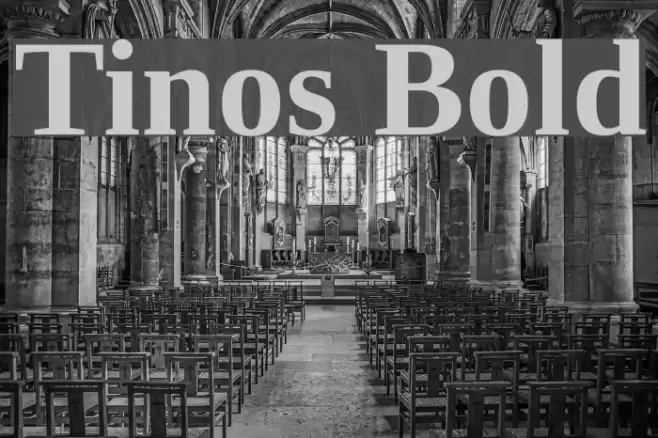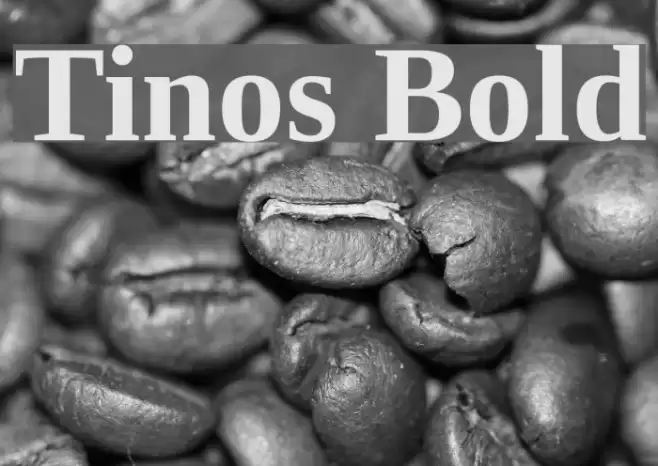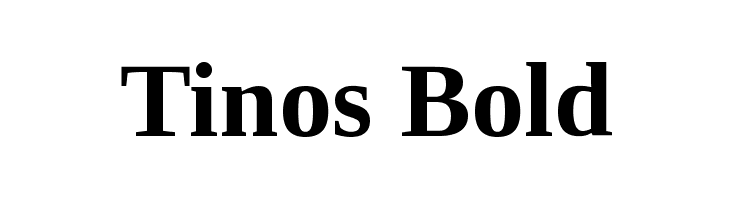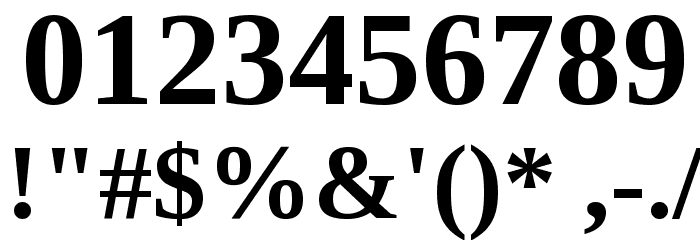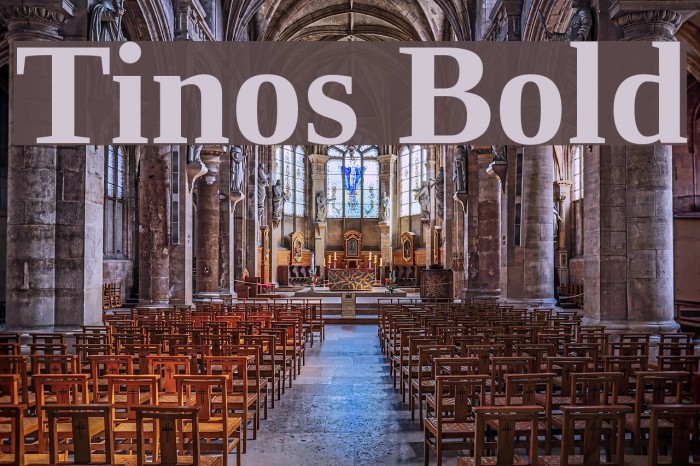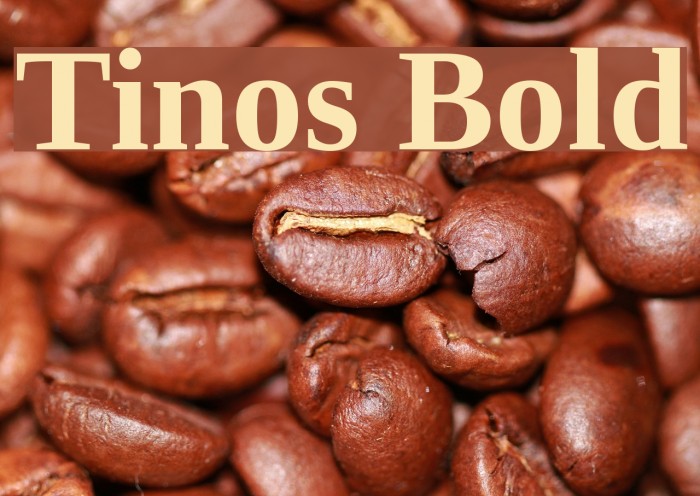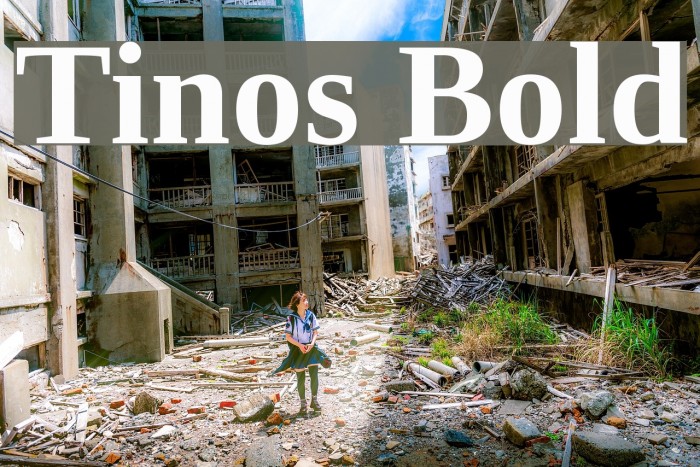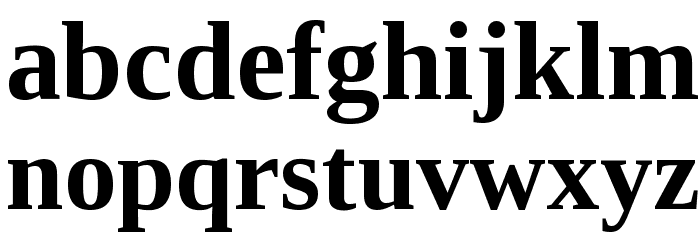
Tinos Bold Font
Tinos Bold Description
This typeface is a bold serif font characterized by its strong, authoritative presence. The letters are well-defined with a classic serif structure, providing a sense of tradition and reliability. The uppercase letters are tall and commanding, while the lowercase letters maintain a consistent weight, ensuring readability. The numerals are clear and distinct, making them suitable for various applications. Special characters are crafted with precision, maintaining the overall elegance of the typeface. The font's bold weight and balanced proportions make it versatile for both digital and print media.
A bold serif font with a classic and authoritative style from Uncategorized fonts.
- Proposed Projects: Ideal for use in headlines, editorial design, branding, and formal invitations.
- Overall Style: Classic